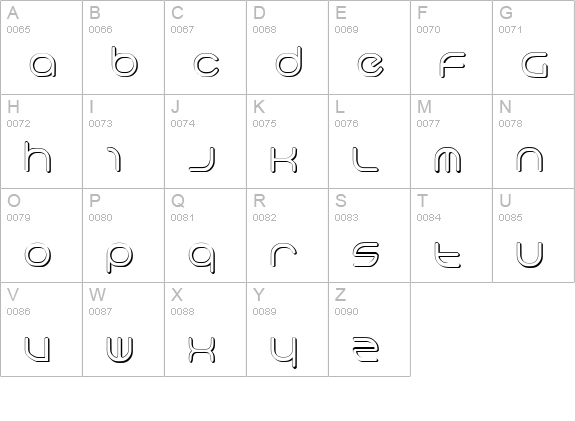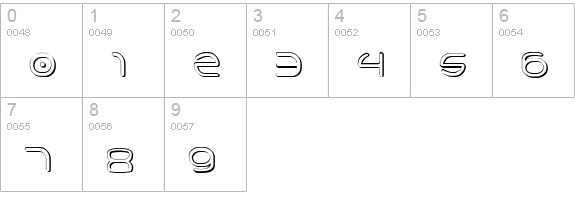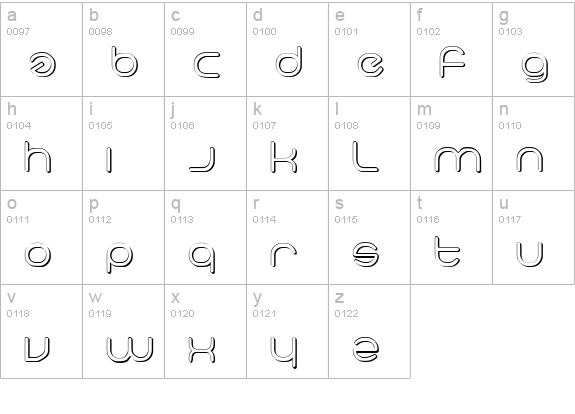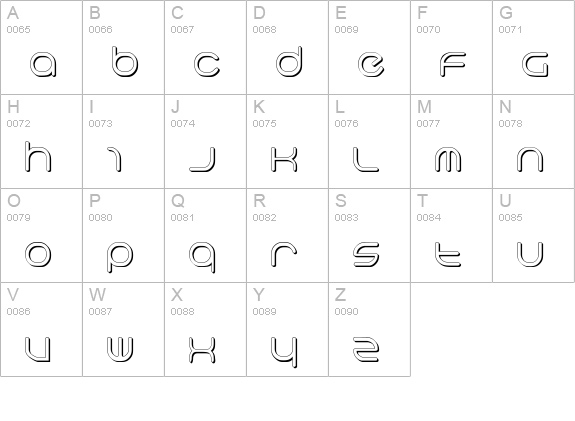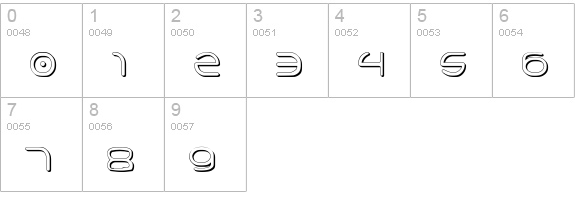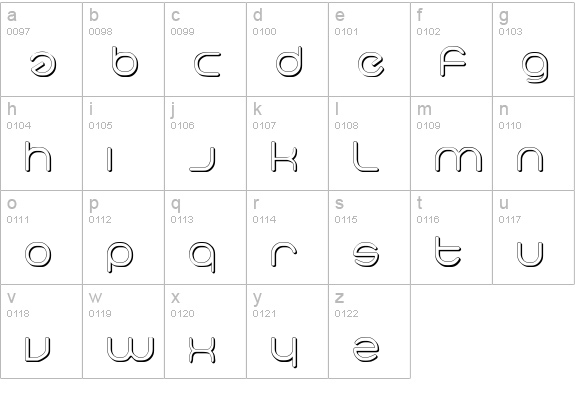
neo-geo 3D Font Details
The neo-geo 3D font combines futuristic design with a touch of retro nostalgia, making it the perfect choice for projects that require a bold and dynamic look. Featuring sharp edges and three-dimensional effects, this font commands attention and adds a modern twist to any design. Whether you are working on a poster, logo, or website, the neo-geo 3D font will elevate your project to the next level. Best of all, this cutting-edge font is available for free download at FontsMarket.com. Don't miss out on the opportunity to enhance your creative projects with the neo-geo 3D font - grab your free copy today!